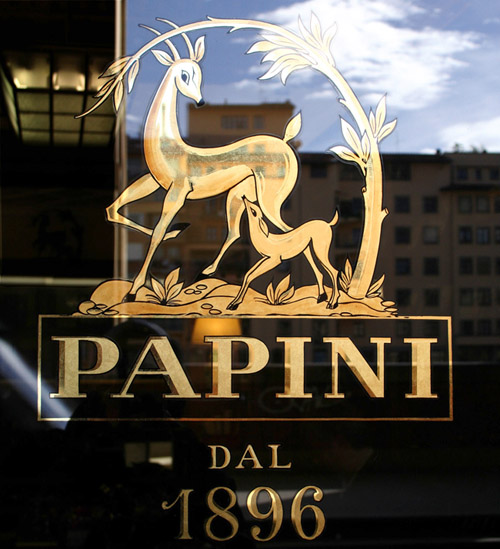
Want to repair window gilding in Florence, Italy?
Well, this is a longshot but here goes:
Rather than tacking this entry on to the earlier thread about the gold leaf window signs in Florence ( https://handletteringforum.com/forum ... f=2&t=3043 ), I thought I'd make an appeal here on behalf of the owner of the Papini Leather Goods store. Paolo Papini, the older gentleman I mentioned in that post, emailed me recently. What I gather from the email is that it is difficult to find sign painters in Florence. The founding date on his door is wearing off. He suggested that if I visit Florence again I could bring my tools and repair the window.
Well I have no plans to return to Italy any time soon but thought possibly someone on the forum may be doing so. It's a tiny job but if I were going, it would be a thrill to do it!
This is what he wrote to me in his broken English:
The sign-makers are difficult to find here in Florence, my sign have the 8 of the foundation date slightly rub off and the artist who did it is retired .The use of the gold leaf that has been used so commonly years ago
is now a problem. Imagine that in our workshop we have used in the 68 years that I have spent in my Company we have used so much gold leaves from Giusto Manetti ,the antique florentine maker ,that only to burn the cotton used to clear off the gold not pressed by the decoration bronze tools ,we were able to gain a real big amount! ! Other times,
If in the future are you caming to Florence again,stop with your tools You could do the repair ! Best regards.Paolo Papin
That whole area is an incredible treat and you would thoroughly enjoy Mr. Papini. You can see a picture of the door below (before the "8" had begun to wear off.)
It seems as though we are enjoying the fruits of an art that is dying even in Italy.
Like I said - it's a long shot.
The "8" is wearing off on this door
No, I think it's just a small job that would not take much time. Since he can't find someone locally, he suggested that if I am in Florence again, I could take care of it while I'm there. (I assume he would pay for the expense of the time to do the job, the gold used, etc.)
I just thought someone on the forum might be heading that way and could take care of it.
Stopping by Florence on a Snowy Evening
Whose sign this is I think I know.
His shop is in the village though;
He hopes that I could make it here
to fix his "8", so bleak and drear.
Sounds like a great excuse for a trip. Do we have any European gilder readers..?